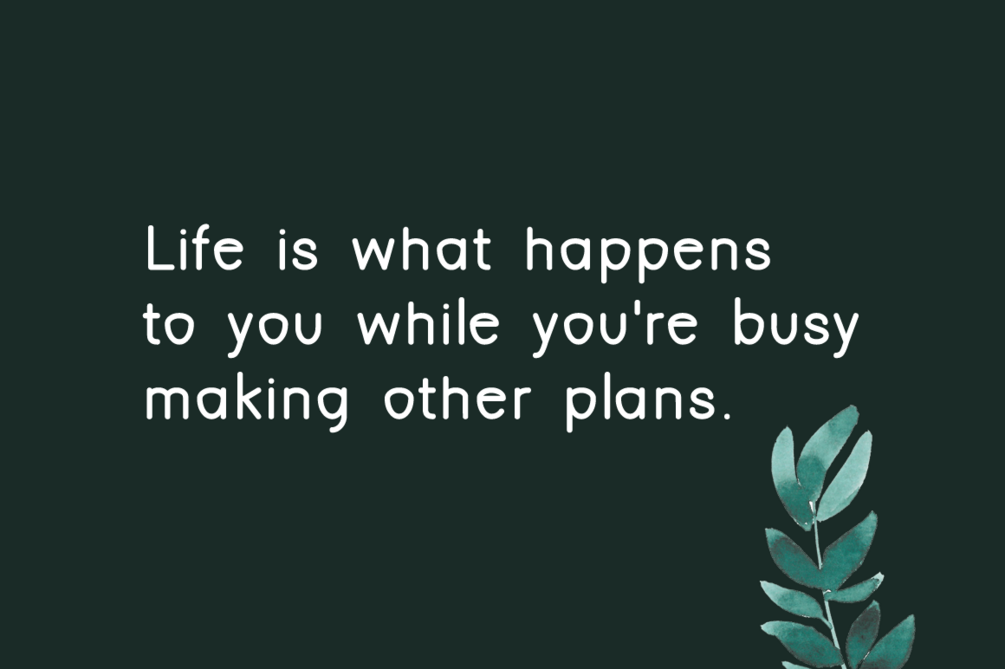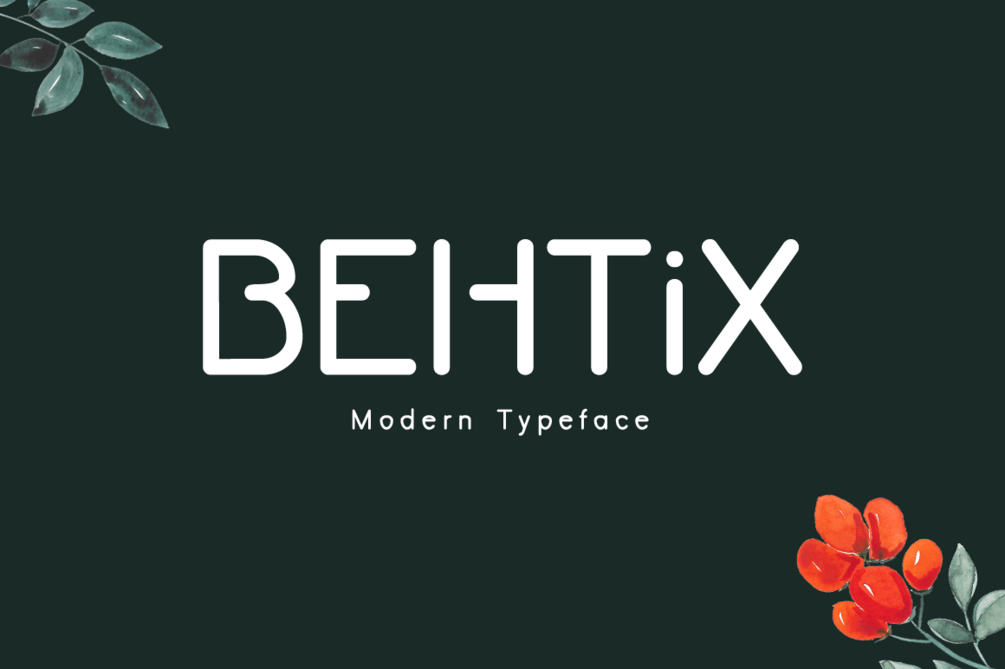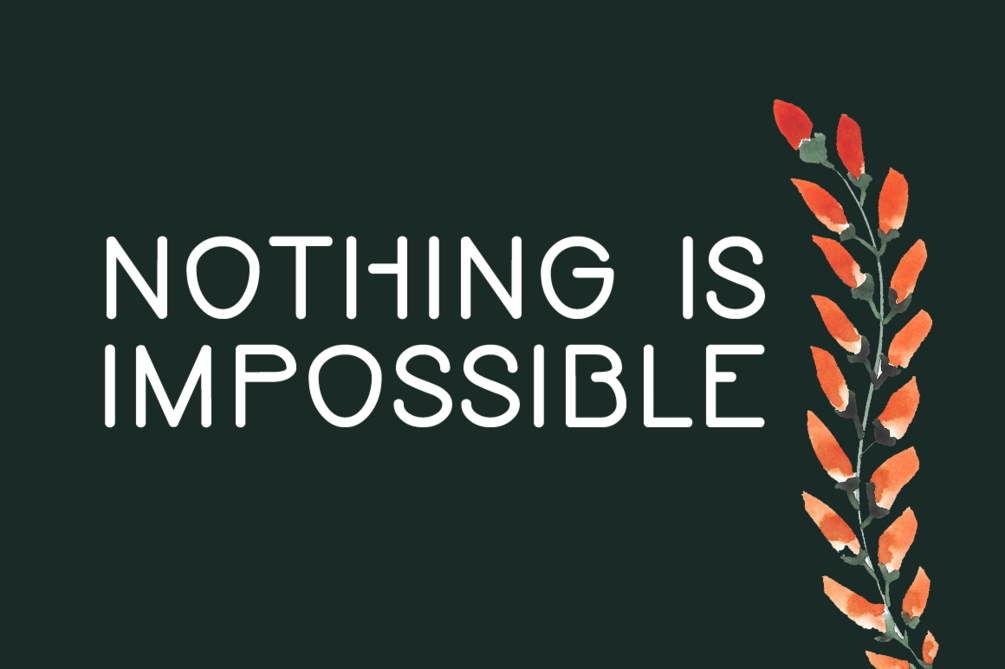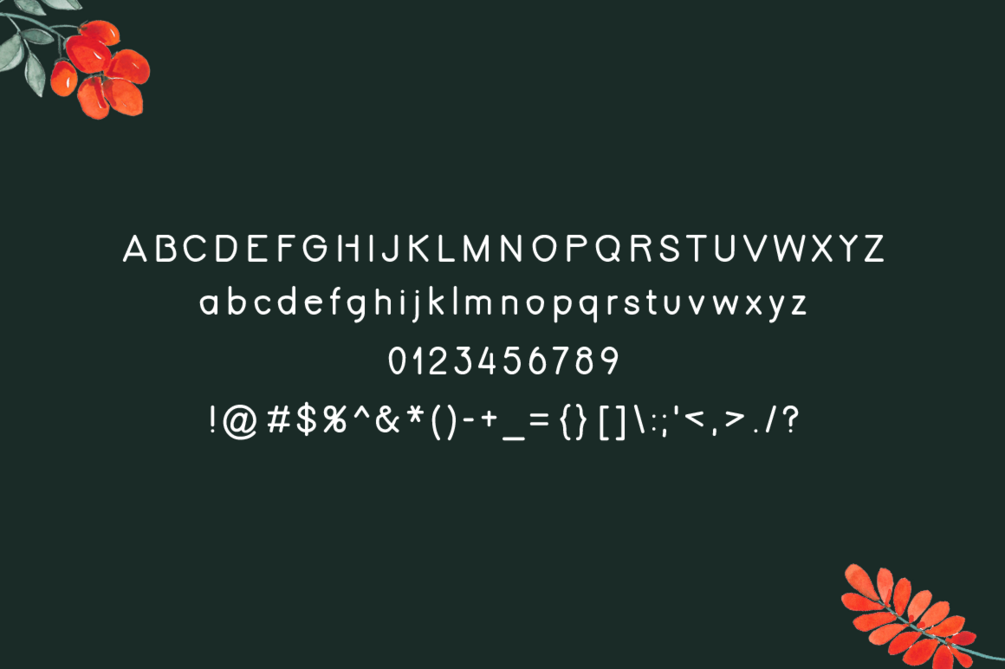
Behtix Typeface
Behtix is a brand new modern display font. Behtix is perfectly suited for stationery, logos, t-shirt, paper, print design, website header, photo frame, flyer, music cover, poster, image slider and much more.